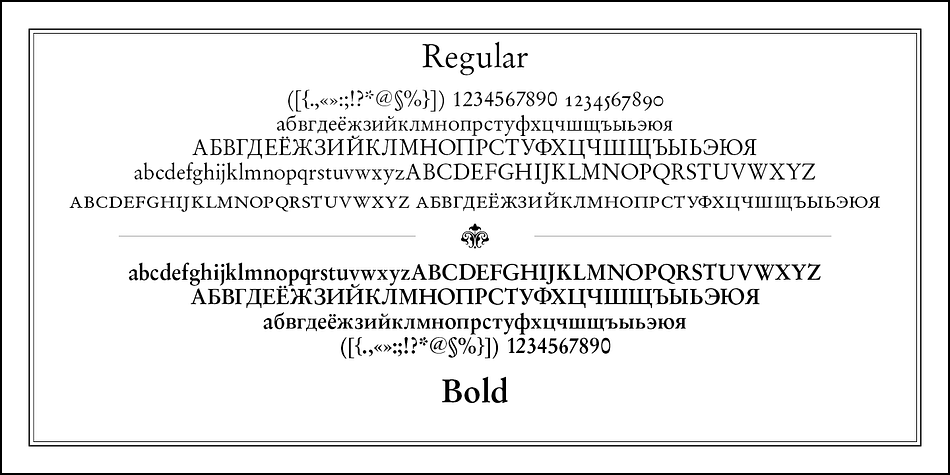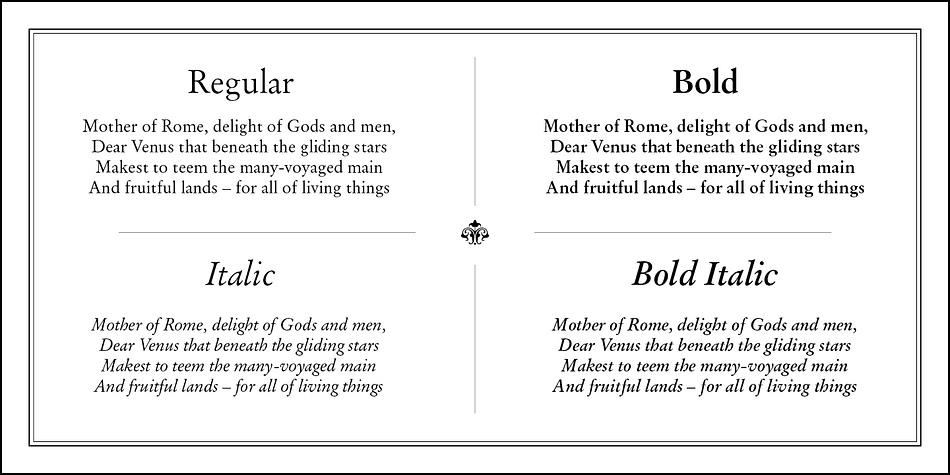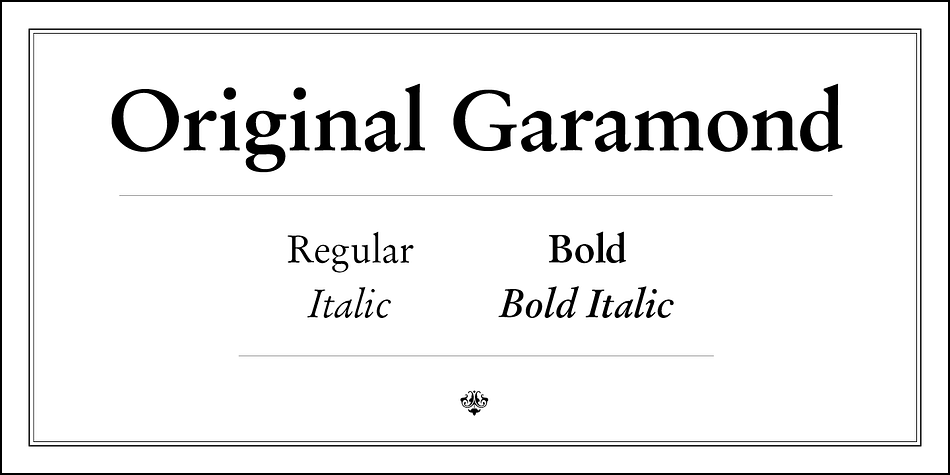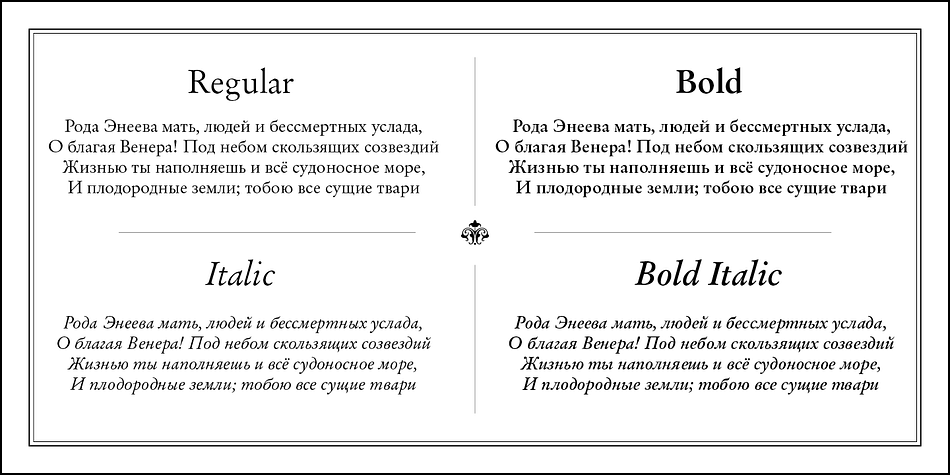
Designed by Gayaneh Bagdasaryan, Originalgaramond BT is a serif font family. This typeface has four styles and was published by ParaType.
The Stempel foundry in Germany produced this version of Garamond in 1925 as a replica of a typeface of a French punchcutter Claude Garamond (middle of the 16th century).
This design has an angular incised appearance which is unlike other Garamond types. It is also slightly heavier in weight, and is highly readable as a text face.
Well suited for a wide range of applications and treatments. Original Garamond is the Bitstream version of Stempel Garamond.
Cyrillic version was developed for ParaType in 2002 by Gayaneh Bagdasaryan.